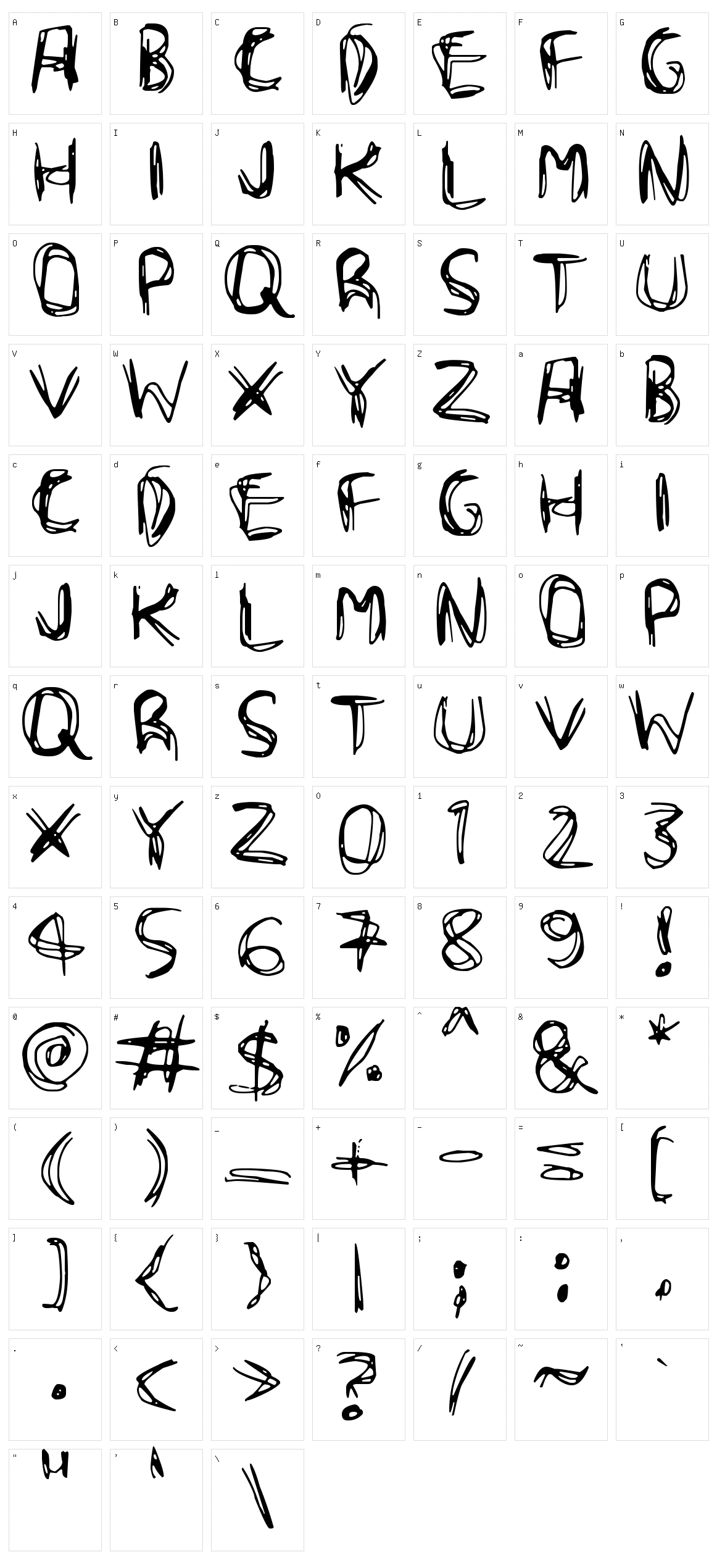
The free font Scribble Wire is carefully designed by Hawtpixel, showcasing a thoughtful balance of creativity and usability and falls under the Trash font style. When you download the ZIP file, it contains only 114.79 KB of font files, making it lightweight and quick to download. Please review the license details below to understand permitted usage and distribution rights. If license information is not available, we recommend using this font for personal projects only or contacting the author directly for commercial usage permissions.